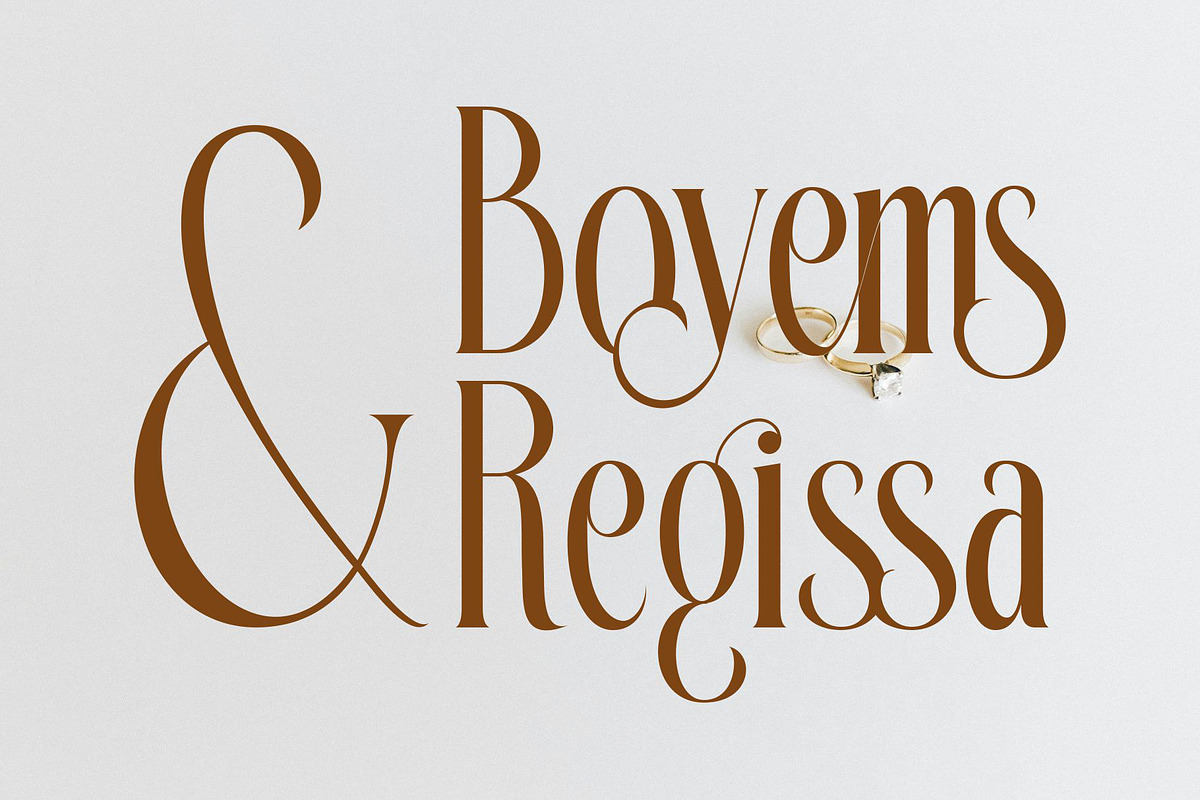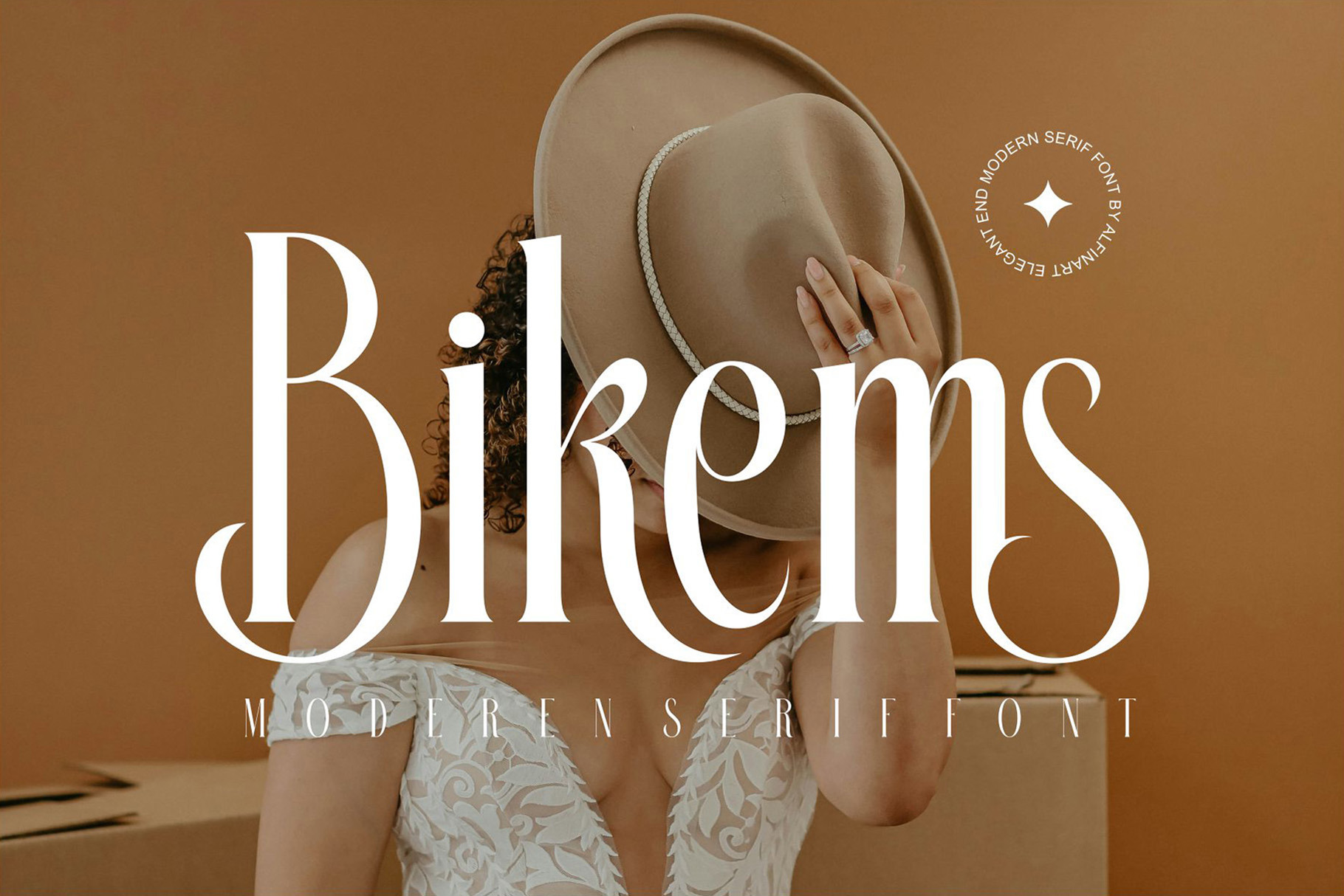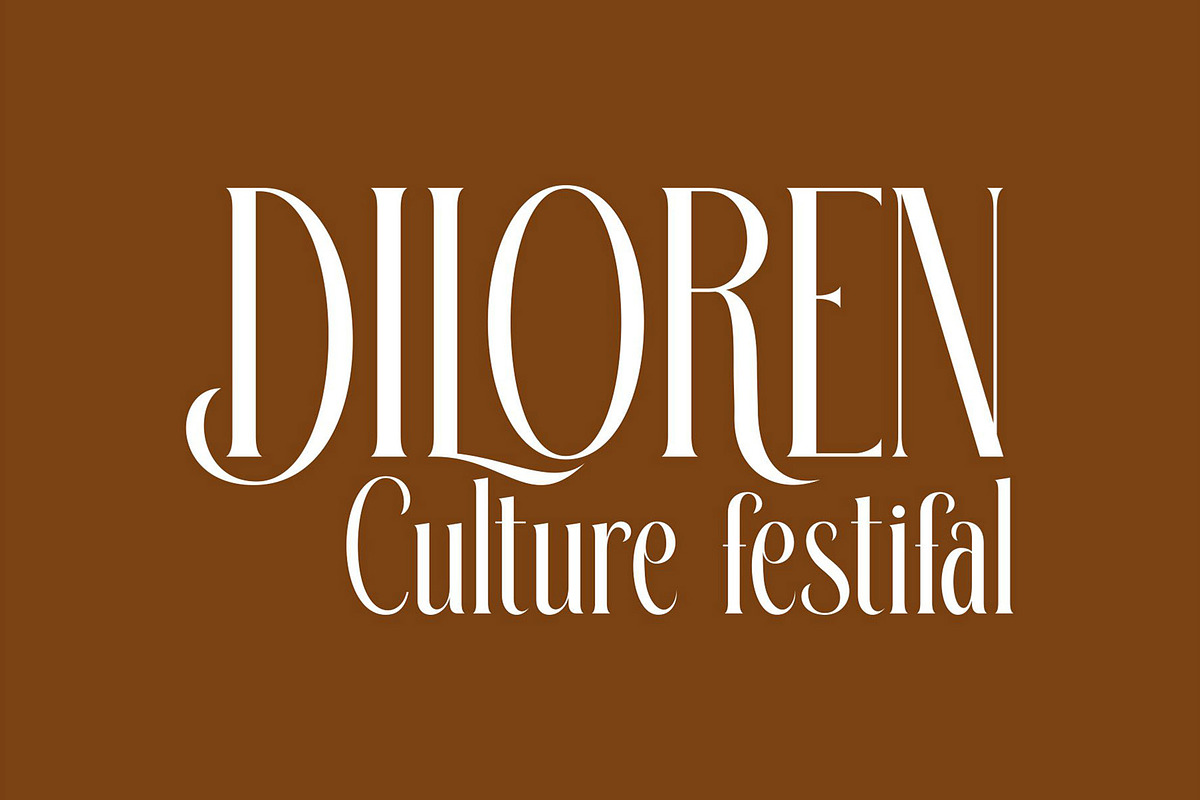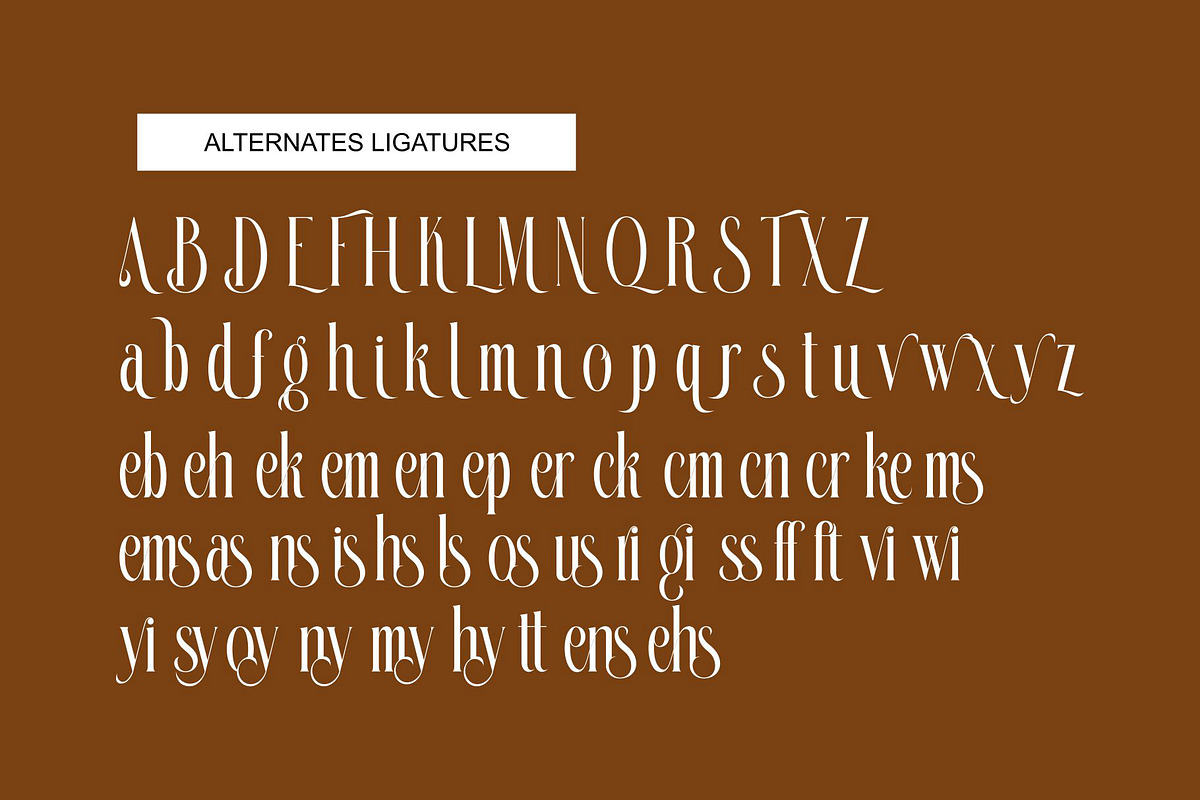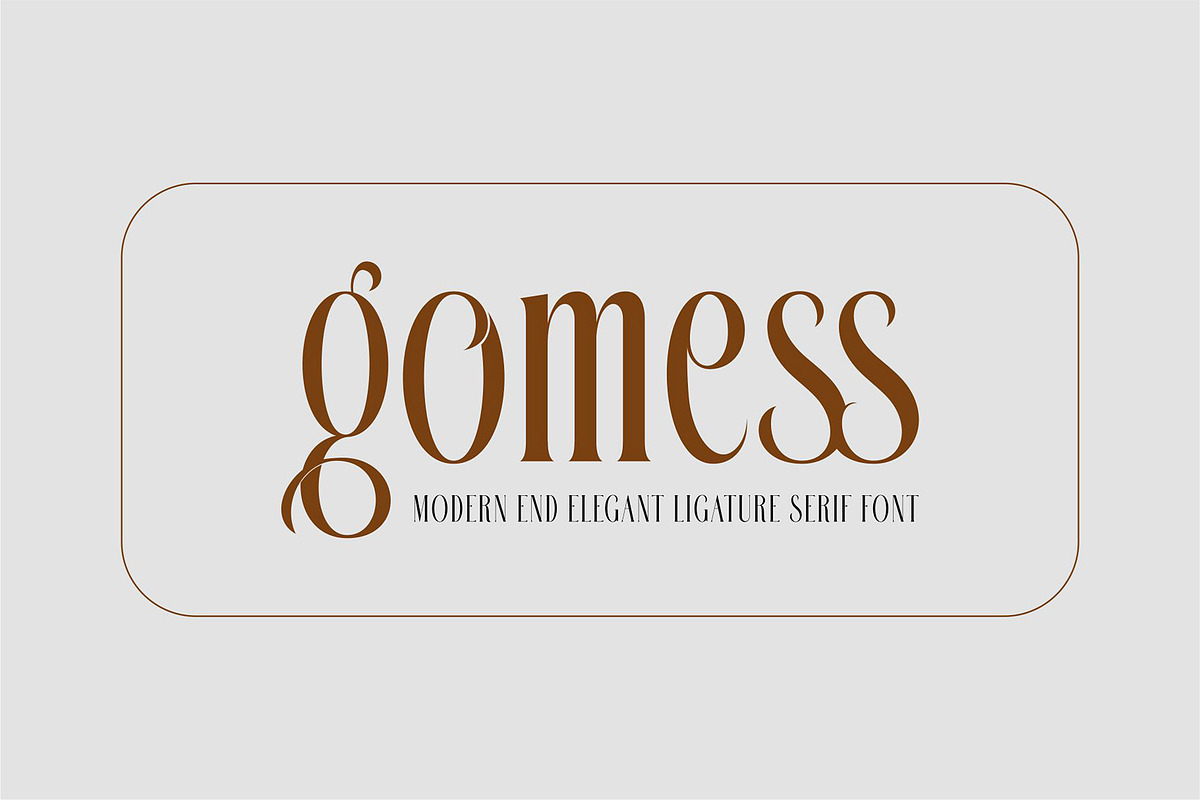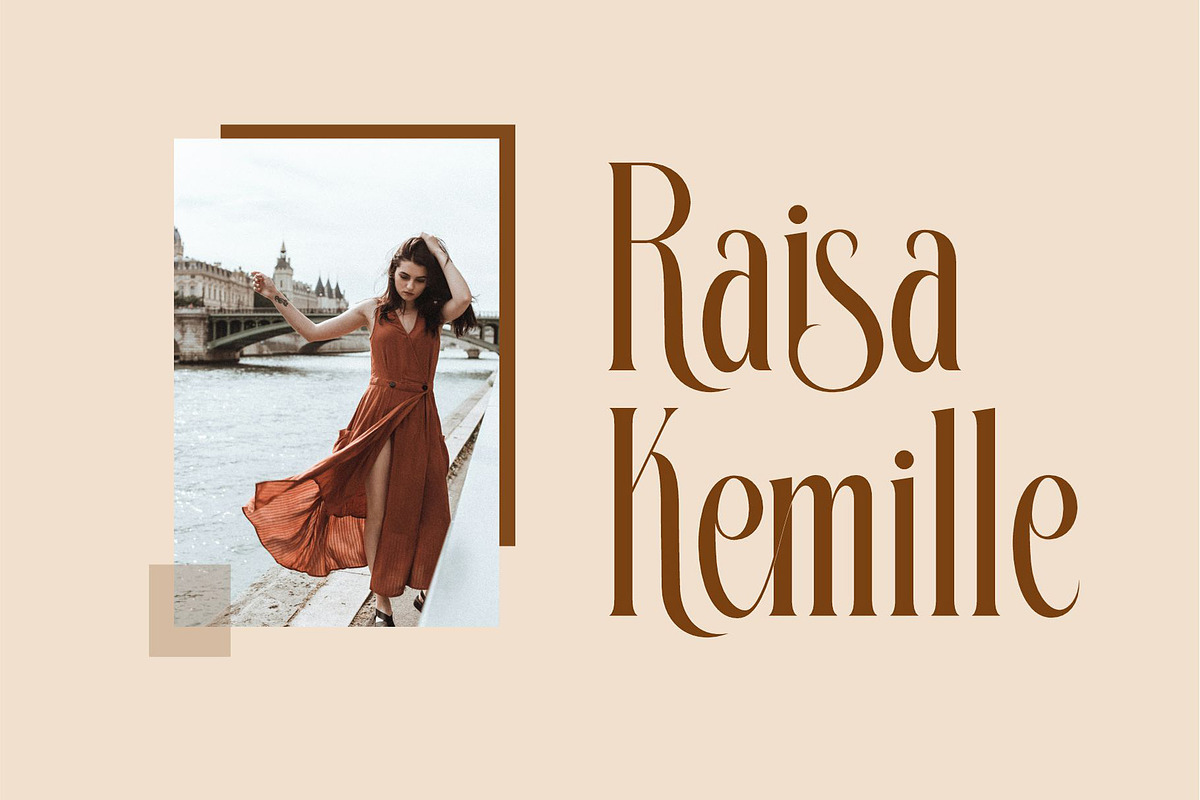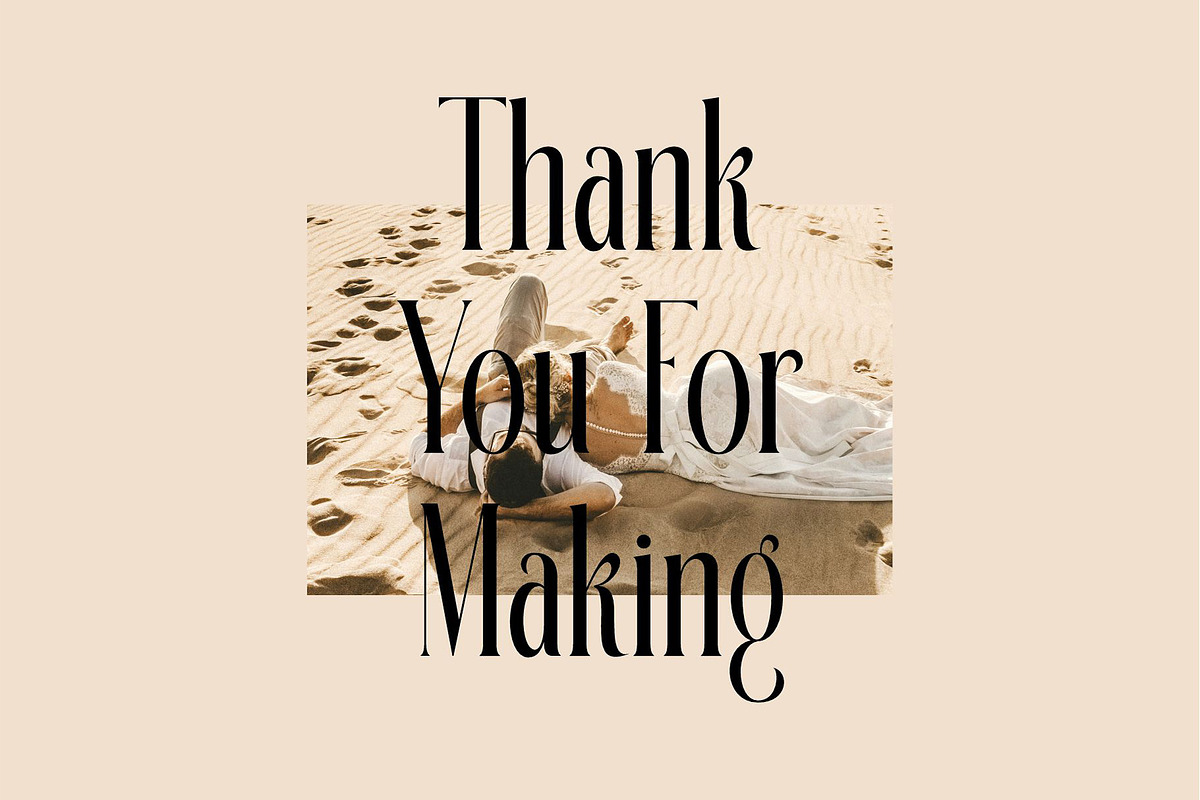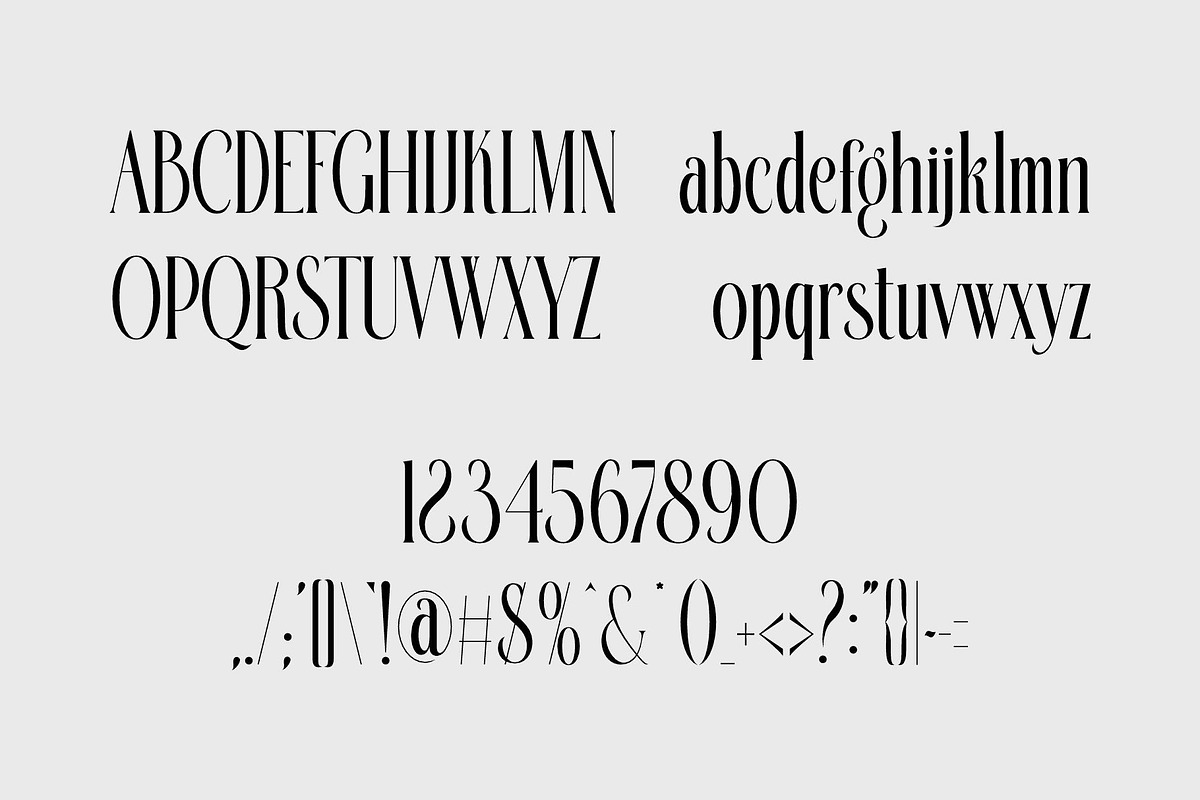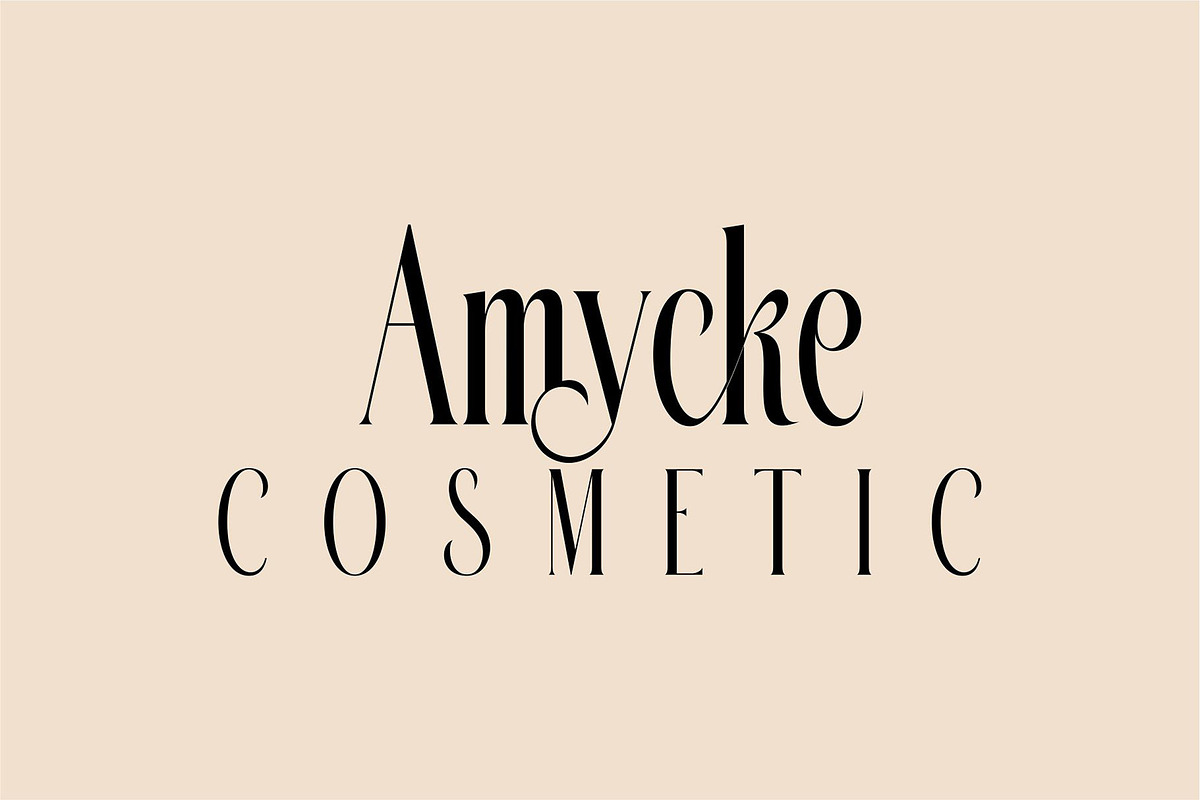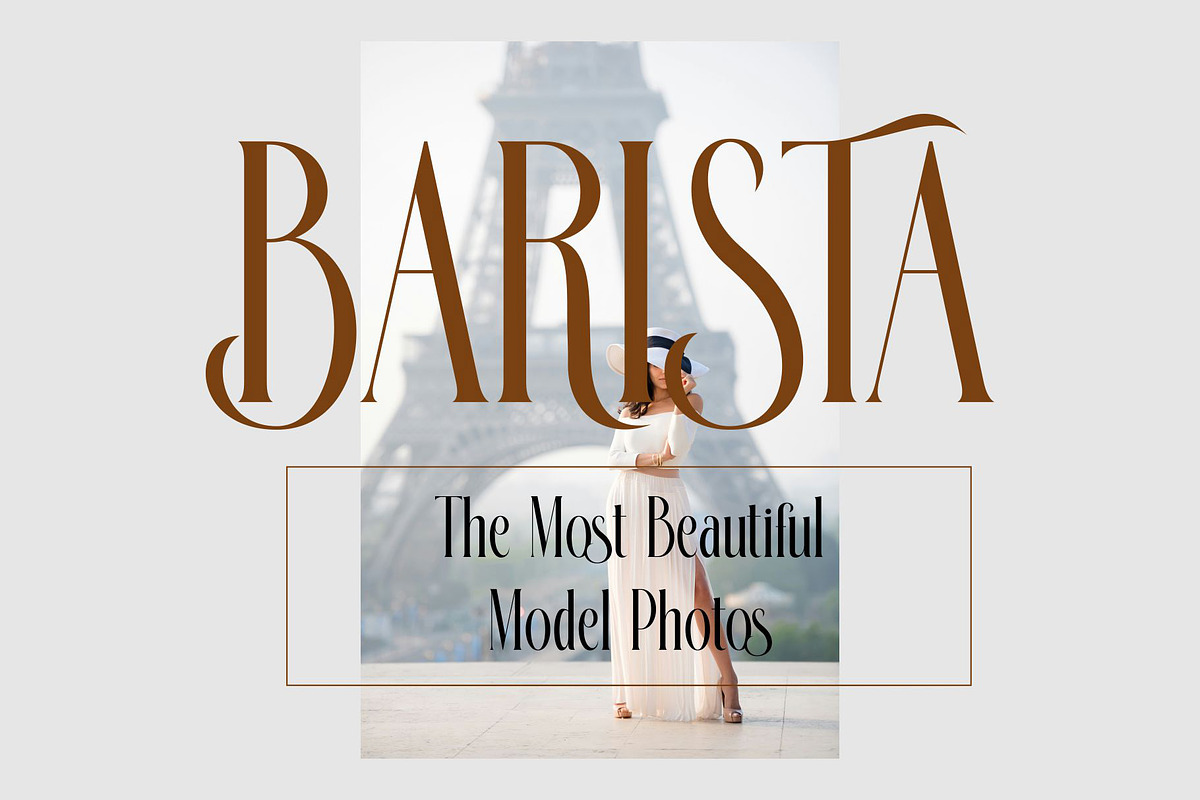
Bikems Modern Serif Typeface
Bikems Modern Aesthetic and Elegant Serif Typeface inspired by the famous minimalist logo perfect for the purposes of designing templates, brochures, videos, advertising branding, logos, invitation, layout design, elegant crafting, beauty design and other